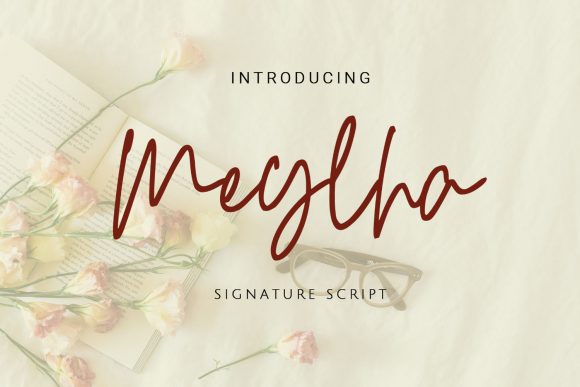
Prepare to be enchanted by Meylha, an exquisite handwritten font that exudes sophistication and style. With its effortless flow and graceful curves, Meylha is the perfect choice for crafting captivating logos that leave a lasting impression.
Immerse yourself in a world of elegance and allure as you discover the allure of Meylha. Each letter dances across the page with a delicate touch, leaving a trail of timeless beauty in its wake. Meylha is not just a font; it's a work of art that transforms your designs into masterpieces.
Unleash the boundless potential of Meylha and let your creativity soar. Its versatility knows no bounds, making it an ideal companion for a diverse range of projects. From personal branding to product packaging, Meylha seamlessly adapts to your vision, adding a touch of brilliance to every endeavor.
Indulge in the sheer joy of creating with Meylha. Its user-friendly nature makes the design process an absolute delight. Whether you're a seasoned pro or just starting your design journey, Meylha empowers you to effortlessly craft captivating logos that will turn heads.
Don't settle for ordinary when you can have extraordinary. Meylha is the key to unlocking your design potential. With its captivating charm and limitless possibilities, Meylha is the ultimate choice for those who seek to make a statement with their designs.